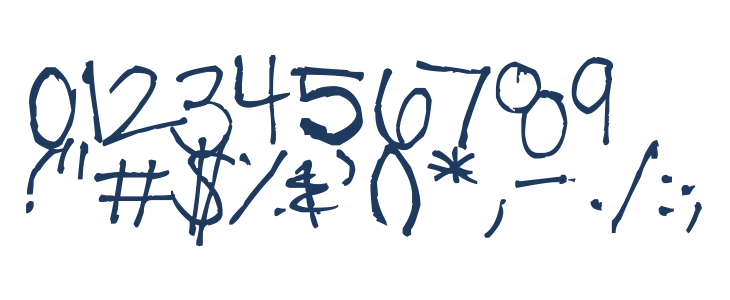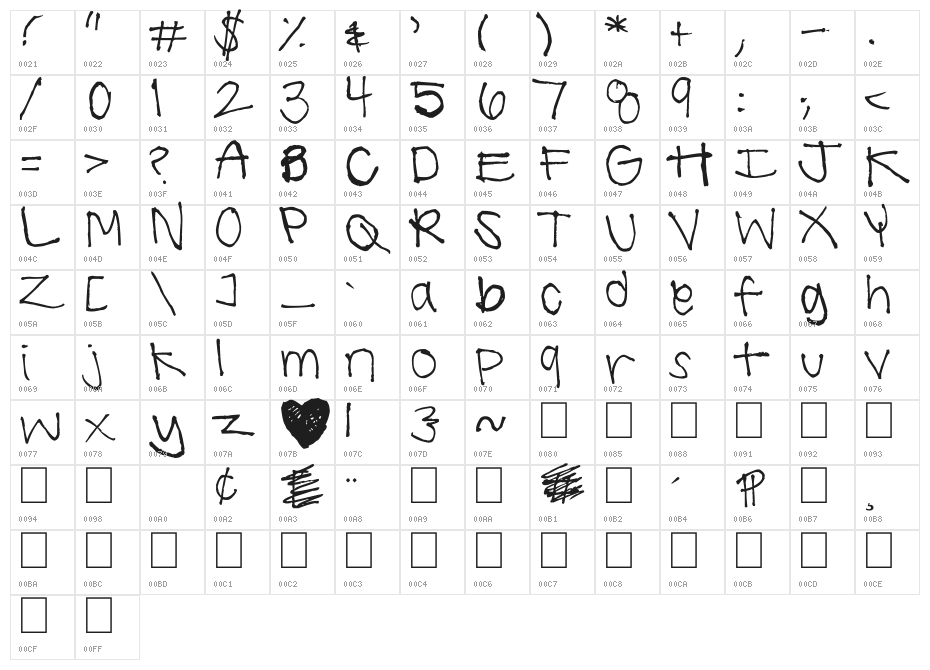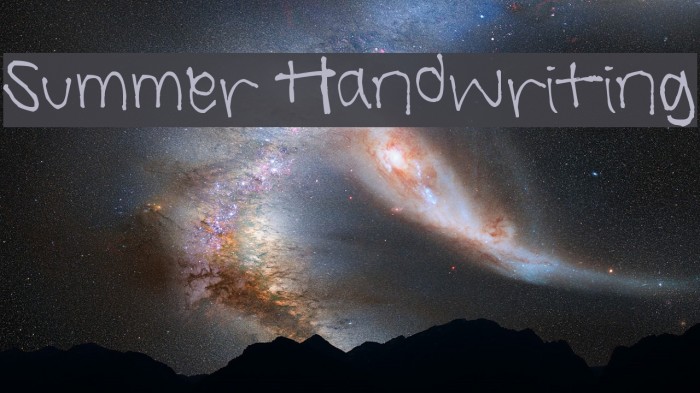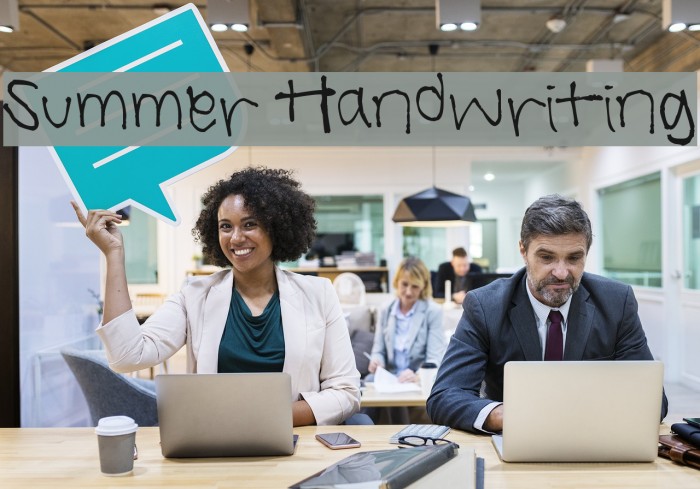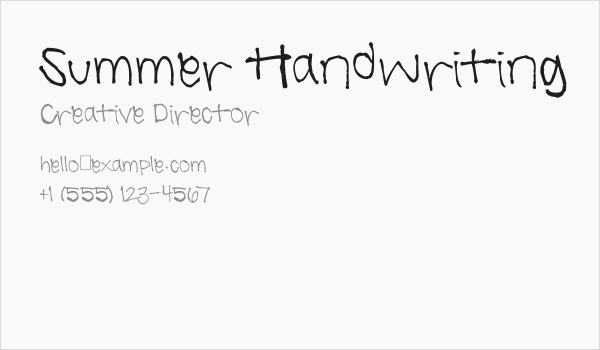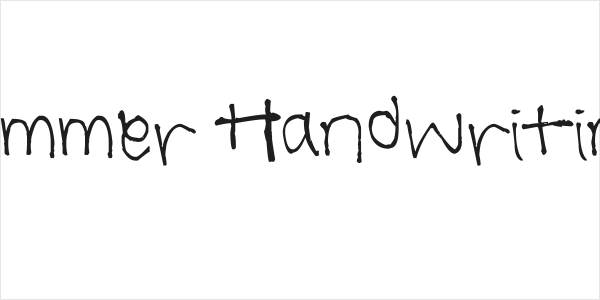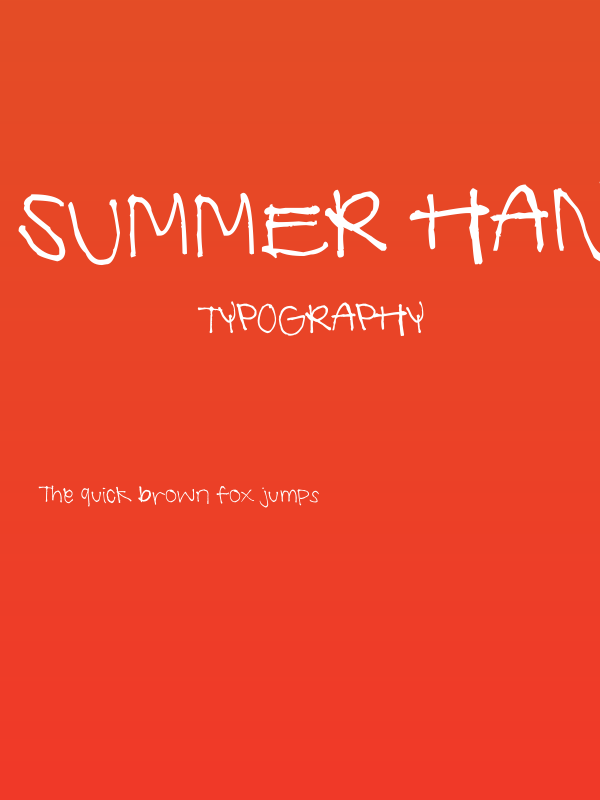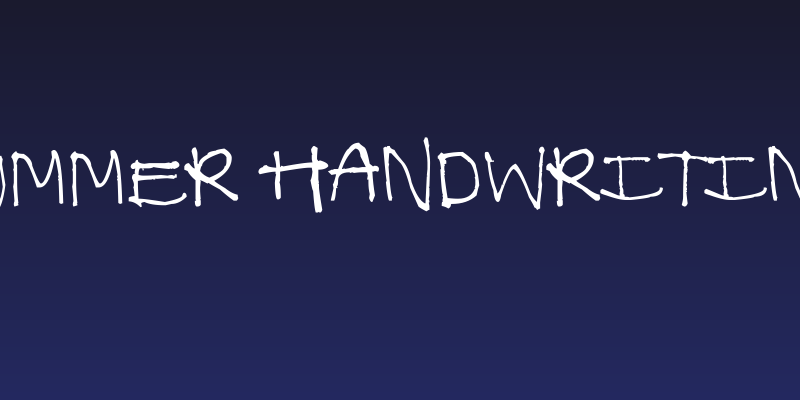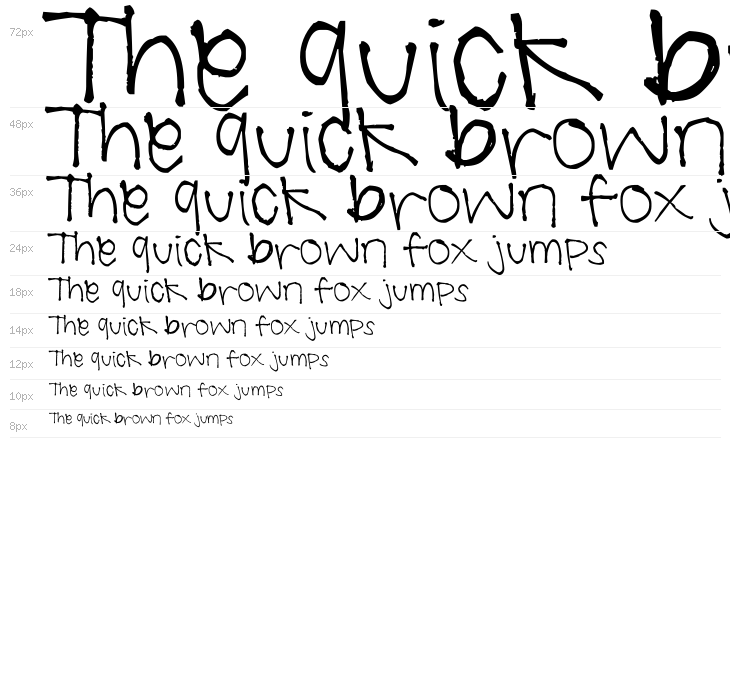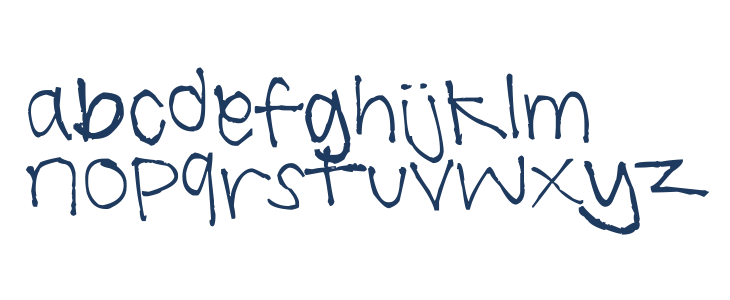
Summer Handwriting Font
Summer Handwriting Description
This font exudes a casual and playful vibe, reminiscent of handwritten notes or doodles. The characters are unevenly spaced and vary in size, adding to the informal and spontaneous feel. The strokes are bold and irregular, giving each letter a unique personality. The uppercase and lowercase letters maintain a consistent style, while the numbers and special characters are crafted with the same whimsical touch. This font is perfect for projects that require a personal, human touch, such as greeting cards, invitations, or creative posters.
| Overall Style | Casual |
| Use Case | Headlines, Creative projects, Personal notes |
| Proposed Projects | Ideal for greeting cards, invitations, creative posters, and any project needing a personal touch. |